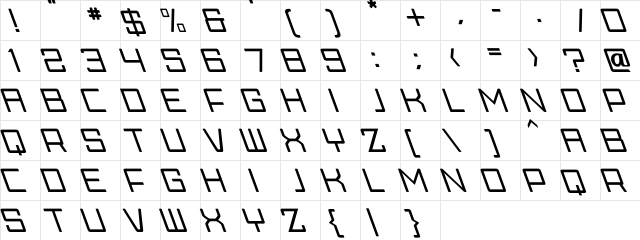
Skylark Oblique Regular
Design Context for Skylark Oblique Typeface
Skylark Oblique takes a measured approach to typography — its balanced proportions and neutral character make it a reliable workhorse for both digital and print work. Its italic angle brings a sense of urgency and motion to the letterforms.
Pro Tip: Use Skylark Oblique for emphasis, pull quotes, and subheadings where its slanted energy can add rhythm to the layout.